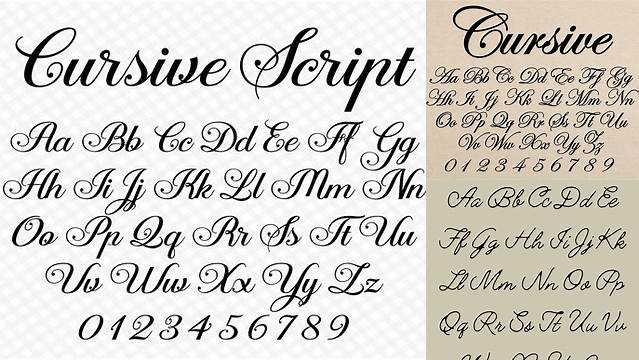
Cursive Alphabet Fonts Styles: A Comprehensive Guide
Discovering the world of cursive alphabet fonts styles can feel like opening a treasure chest. The elegance, the flow, and the sheer artistry of each letter can be captivating. Whether you're a seasoned designer, a student eager to master the art of calligraphy, or simply someone who appreciates beautiful typography, understanding the nuances of cursive fonts is essential. This comprehensive guide will take you on a journey through various styles, offering insights and tips to help you choose the perfect font for your project. Let's dive in, guys!
The Allure of Cursive: Why Choose Cursive Alphabet Fonts?
Alright, let's talk about why cursive alphabet fonts styles are so darn appealing. Cursive fonts, at their core, evoke a sense of sophistication, personalization, and tradition. Think about a handwritten letter – it's intimate, it's unique, and it carries a certain charm that a plain, typed message simply can't replicate. This same charm translates beautifully into the digital realm. When you select a cursive font, you're essentially adding a touch of human warmth and creativity to your work. Consider this, you can add a touch of human warmth and creativity to your work, making your projects stand out.
Cursive fonts are great for everything from wedding invitations to branding materials, logos, and even social media graphics. They can instantly elevate the aesthetic of your design, making it feel more luxurious, romantic, or even playful, depending on the specific style you choose. Plus, cursive fonts often have a graceful flow, connecting letters to create a visually pleasing rhythm. This makes them perfect for headlines, quotes, and anything where you want to draw attention and create a lasting impression. But hey, you should use it wisely. You don't want to use cursive fonts in places where readability is a must-have thing.
The Impact of Cursive in Design
Let's explore how cursive alphabet fonts styles can make an impact on the design. The correct font can seriously elevate your design. Using the right cursive font helps create the desired mood, tone, and style. A delicate, flowing script might be ideal for a wedding invitation, while a bold, more modern cursive could be perfect for a fashion brand's logo. The strategic use of cursive fonts allows you to create designs that are both visually appealing and effective in conveying your message. The right selection of cursive fonts also helps with branding. It can also help with creating a unique identity and building brand recognition. Think of the classic cursive Coca-Cola logo, or the elegant script of Tiffany & Co. - these fonts are instantly recognizable and synonymous with the brands themselves. But let's not forget about readability! The more you use the cursive font, the more people get used to it. So, using it in moderation helps with the overall design, as well as the message.
Classic Cursive Fonts: Timeless Elegance
Now, let's journey into the heart of cursive alphabet fonts styles: the classics. These are the fonts that have stood the test of time, and for good reason. They're the elegant, familiar faces that embody the essence of cursive handwriting. These are the go-to choices for projects needing a touch of traditional sophistication. They are also the most popular choices.
Classic cursive fonts, like the famous ones, are generally known for their formal letterforms, connected strokes, and graceful curves. They often emulate the look of traditional penmanship, offering a sense of heritage and refinement. They can be a safe bet when you're aiming for timelessness. These fonts evoke a sense of nostalgia, reminding us of a time when handwriting was an art form. These are your go-to fonts when you want to establish a classic, sophisticated mood. They can also be a great choice when you want to add a personalized touch to a design.
Popular Classic Cursive Fonts and Their Characteristics
Let's explore some of the most popular and well-loved cursive alphabet fonts styles in the classic category. You've probably seen these fonts around. The most recognized and widely used of these fonts is definitely the Zapfino. Originally developed by Hermann Zapf, this font beautifully mimics a hand-written style with its flowing and natural lines. The font also comes with several features. It supports many ligatures and contextual alternates, offering a realistic hand-written feel. Next, there is also the Shelley Allegro. Created by Colin Brignall, this font is known for its very elegant and romantic feel. It is great for invitations and other special event-themed projects. Now, let's also include Edwardian Script. This one is pretty famous too. Inspired by the early 20th century, it offers a very formal and classic look. It's perfect for any project that needs a touch of vintage elegance. So, if you are unsure, start with these. They are pretty safe options.
Modern Cursive Fonts: Contemporary Flair
Okay, let's shift gears from the classics and dive into the world of modern cursive alphabet fonts styles. These fonts are where you'll find contemporary designs, often with a touch of innovation and a dash of edginess. These fonts are tailored for projects where you want to show off a modern look. They’re the go-to choice when you want to add some unique character to your design.
Modern cursive fonts often embrace bold strokes, unique letter shapes, and sometimes even a playful disregard for traditional penmanship rules. They are designed to make a statement, so they tend to have more distinctive features. They are also characterized by their fresh and contemporary feel, making them a perfect choice for designs that aim to stand out from the crowd. You'll often see these fonts used in branding, logos, and social media graphics, where a touch of creativity can make all the difference.
Key Features of Modern Cursive Fonts
What makes modern cursive alphabet fonts styles so unique, you ask? The main feature is their innovative spirit, which allows them to push the boundaries of what cursive fonts can be. Many fonts incorporate unusual letterforms, such as angular or stylized strokes. They often come with a bold or heavy weight, creating a high visual impact. Modern cursive fonts also tend to incorporate a variety of ligatures and alternate characters. So, the users can customize them and add uniqueness to their designs. Some modern cursive fonts might also have a handwritten or brush-like quality. This gives a raw and organic feel to your design. The designs are very flexible and very diverse, which allows them to fit many design projects.
Script Fonts vs. Cursive Fonts: Understanding the Difference
Alright, let's clear up some confusion. Sometimes, the terms script fonts and cursive alphabet fonts styles are used interchangeably, which can get a little muddy. While there's overlap, there are key distinctions to keep in mind. Knowing the difference can help you select the best font for your needs.
Generally, a script font encompasses all fonts that mimic handwriting. This includes a wide range of styles, from formal calligraphic fonts to casual brush-stroke fonts. Cursive fonts, on the other hand, are a subset of script fonts. They specifically emulate the style of connected handwriting. So, all cursive fonts are script fonts, but not all script fonts are cursive. Think of it like this: All squares are rectangles, but not all rectangles are squares. Now, are you getting it?
Script Font Styles Beyond Cursive
Let's explore other script alphabet fonts styles outside of cursive. Beyond cursive fonts, the script font category opens up a whole world of design possibilities. We're talking brush script fonts, which mimic the rough, expressive strokes of a paintbrush. Then there are calligraphic fonts, which offer the elegant precision of formal calligraphy. The casual script fonts are very flexible. They can be used for various design needs. Each style can influence the mood and tone of your design.
Brush Script Fonts: The Art of the Stroke
Now, let's paint with words and delve into the world of brush script fonts. These fonts are designed to look like they've been written with a paintbrush, offering a free-flowing, organic aesthetic. If you want to add a splash of personality, this is the way to go. These fonts are perfect for projects where you want a casual, handcrafted look. These are a great way to add a natural touch to any design project.
Brush script fonts are characterized by their dynamic strokes, often varying in thickness to reflect the pressure applied with a brush. They often have a handwritten feel that makes them warm and personal. These fonts can also bring a sense of energy and movement to a design. They're perfect for projects that benefit from a more artistic feel. Many of them offer a variety of character options, such as ligatures, that can mimic a handwriting aesthetic.
Popular Brush Script Font Characteristics
Let's dive into the unique characteristics of brush script fonts. Each stroke should be visually dynamic. The strokes should vary in thickness. This allows the users to create a natural feel and a handwritten look. Brush script fonts also often embrace imperfect and slightly irregular letterforms, which add to their raw charm. Many designs include a variety of alternates and ligatures. This helps in creating a realistic look. This also helps users to customize the font based on their design needs. They may have a textured appearance, which can simulate the effect of ink on paper. So, if you are trying to design a project that has a warm, handcrafted vibe, brush script fonts are the best option.
Calligraphic Fonts: The Elegance of Formal Script
Now, let's switch to something a bit more refined, and explore the elegance of calligraphic alphabet fonts styles. These fonts emulate the style of formal calligraphy, offering a sophisticated and timeless aesthetic. These fonts are perfect for projects that require a touch of elegance, such as wedding invitations, formal announcements, or luxury branding.
Calligraphic fonts are all about precision and artistry. They're characterized by their flowing letterforms, graceful curves, and often, the use of decorative flourishes. They tend to have a very formal feel, reflecting the traditional art of calligraphy. The emphasis here is on beauty and refinement, with each letter carefully crafted to create a harmonious visual experience. These fonts are perfect if you want your project to stand out.
Key Features of Calligraphic Fonts
Let's explore the defining features of calligraphic alphabet fonts styles. These fonts often showcase a strong contrast between thick and thin strokes. This creates a visual rhythm and adds to their elegance. They have a delicate and refined appearance that is a hallmark of traditional calligraphy. Many calligraphic fonts include elaborate flourishes and swashes. These are artistic elements that add a touch of sophistication and visual interest to the design. Calligraphic fonts also often have carefully crafted letter connections, ensuring a smooth and graceful flow between letters. The designs are perfect for projects that require a sense of tradition and refinement. For those who want to add a bit of elegance to their design projects, calligraphic fonts are the best choice.
Handwritten Fonts: Emulating the Human Touch
Let's talk about the unique style of handwritten alphabet fonts styles. These fonts are designed to mimic real handwriting, offering a personal and authentic touch. These fonts are perfect for projects where you want to create a sense of intimacy and originality. They're the fonts that add a human touch to your work.
Handwritten fonts often have an informal and approachable vibe. They're characterized by their unique and sometimes imperfect letterforms, mirroring the natural variation found in handwriting. These fonts can add a sense of warmth and approachability to your design. These fonts are great for things like personal cards, social media content, and any other design where you want to create a connection with your audience.
The Characteristics of Handwritten Fonts
Let's get into the core features of handwritten alphabet fonts styles. These fonts are known for their individual and unique letterforms. Each letter may be slightly different, reflecting the natural variation of handwriting. They often have an organic and informal aesthetic, with a more casual vibe. They are characterized by a natural flow and connection. This allows the fonts to mimic how words are written in real life. Some handwritten fonts include imperfections, such as uneven lines or subtle variations in stroke thickness. This adds to their authentic, hand-drawn quality. So, the more you use the handwritten font, the more it feels personal.
Choosing the Right Cursive Font: A Step-by-Step Guide
Alright, ready to choose the perfect cursive alphabet fonts styles? It's not always easy, but we'll guide you through the process. Here's a step-by-step guide to help you select the ideal font for your project.
First, define the purpose of your project. What message are you trying to convey? Are you aiming for elegance, playfulness, or professionalism? Your goal will influence the choice of font.
Identifying Your Project's Needs
Let's dig deeper into the project requirements for cursive alphabet fonts styles. Think about your target audience. Will they appreciate the font? The age, interests, and expectations of your audience are very important. Also, consider the design context. Is it a wedding invitation, a logo, or social media content? Each context needs a specific font design. Then, consider the readability. Choose a font that is easy to read, especially if it's used for long text or headlines. The overall design should fit your font style. The font needs to match the design you are doing.
Testing and Refining Your Choice
After you've made your selection of cursive alphabet fonts styles, it's important to test it out. See how the font looks in practice. This is an essential step to make sure that you are going in the right direction. The design is a very important thing in the project, so it's always a must to check your font before you proceed with the design. It allows you to spot any issues and make adjustments before you finalize your design.
Implementing Your Chosen Font in Your Project
Once you've chosen the cursive alphabet fonts styles that's perfect for your project, the next step is to implement it. It can seem daunting, but it's really about making sure that the font works as you envisioned. There are several key things to consider. Make sure that your font has a proper design. Make sure it aligns with your brand identity and the tone you are trying to communicate. Consider the weight and size of the font. Make sure it is readable and visually appealing. Adjust the spacing and kerning of the font, for better readability. Remember, the goal is to make your design stand out, so always make sure your font aligns with your design.
Font Licensing: Understanding the Legalities
When dealing with cursive alphabet fonts styles, you should also know about font licensing. Font licensing is essential for respecting the intellectual property rights of font designers and avoiding legal issues. You need to learn about different types of font licenses and the scope of their usage.
Types of Font Licenses
Here's what you should know about cursive alphabet fonts styles and licenses. The most common one is the Personal Use License. This allows you to use the font for personal, non-commercial projects. Then there's the Commercial Use License. This lets you use the font for commercial projects, such as those aimed at making a profit. Pay attention to the terms of each license. Some licenses may have restrictions on things like the number of users or the type of project you can use the font for. Others may include a price for usage. The next type of license is the Open Font License. These are usually free fonts that permit their usage without having to pay for them. You can usually download these from Google Fonts. Understanding these details is crucial to make sure you are using the font legally.
Cursive Font Pairings: Finding the Perfect Match
Let's talk about another important thing when working with cursive alphabet fonts styles: font pairings. Pairing a cursive font with the right complementary font can significantly enhance your design. It allows you to create a balanced and visually appealing design. So, choose the right pair that matches your design needs.
Choosing Complementary Fonts
When choosing font pairs for cursive alphabet fonts styles, think about how your chosen fonts will complement each other. Try combining a cursive font with a sans-serif or serif font. This creates a contrast and adds balance to your design. Make sure the pairing works. A good font pairing should enhance the readability and overall aesthetic of your project. Check the character of the fonts you are choosing. These two fonts should work together. Remember, the goal is to create a design that is both visually appealing and easy to understand. So, choose wisely and create the perfect font pairing.
Free Cursive Fonts: Where to Find Them
Alright, where do you find these cursive alphabet fonts styles? It's a common question, and the answer is simple: there are many websites that offer free cursive fonts! These sites are great resources for anyone looking to expand their font collection. Remember to pay close attention to the licensing agreements to make sure you can use the font for your project.
Top Websites for Free Fonts
Let's explore some of the top websites to find free cursive alphabet fonts styles. Google Fonts is a popular choice, offering a wide range of free fonts. It is also easy to use and easy to navigate. DaFont is a well-known website with a large collection of fonts, including many cursive options. Font Squirrel is another great resource, providing free fonts with commercial use licenses. So, finding the right free font is very easy. But remember, always check the licensing terms.
Cursive Fonts in Branding: Creating a Brand Identity
Now, let's look at how you can use cursive alphabet fonts styles for branding. Choosing a cursive font can really define your brand identity. Using a cursive font can help you show off your brand image. A well-chosen cursive font can create a strong visual identity that resonates with your target audience.
Leveraging Cursive Fonts in Logos and Marketing Materials
When using cursive alphabet fonts styles for logos and marketing materials, consider the message you want to convey. Your font choice will affect how your brand is perceived. Make sure your logo and marketing materials use the same font. Also, make sure that your marketing materials are consistent. The font needs to be aligned with your brand identity. When selecting, always keep readability in mind. A font that is both beautiful and easy to read is always the best choice.
Cursive Fonts in Web Design: Enhancing User Experience
How do you use cursive alphabet fonts styles for web design? Cursive fonts can add a touch of elegance and personality to your website. Make sure the font you choose is legible and user-friendly, and you can really make your website better for your users.
Best Practices for Cursive Fonts on the Web
When designing your website with cursive alphabet fonts styles, you should follow a few best practices. Make sure the font is easy to read. Select a font size and weight that's easy on the eyes. Use cursive fonts sparingly, and only for headings or decorative elements. Remember that a good user experience is very important. So, always design with it in mind. Make sure your website looks good on all devices. So, you can provide users with the best user experience possible.
Cursive Fonts for Invitations: Setting the Tone
Let's explore the usage of cursive alphabet fonts styles for invitations. Cursive fonts are perfect for invitations. They can add a touch of sophistication and charm to your design. Whether it's a wedding, a party, or a corporate event, a well-chosen cursive font can set the right tone. This makes your invitation unique.
Designing Invitations with Cursive Fonts
When creating an invitation with cursive alphabet fonts styles, consider your design. The font should match the event. Choose a font that complements the event. Always check for readability and choose the best size and weight. Make sure the spacing is right, so your invitation looks good. Remember, a great design can set the tone of the event.
Digital Calligraphy: Creating Cursive Fonts Digitally
Let's talk about how you can design your own cursive alphabet fonts styles digitally. You can create your own font. The tools available make it easier than ever to create fonts from scratch. The designs created can be as unique and personalized as you want. This opens the door to a world of creative possibilities.
Software and Tools for Digital Calligraphy
When you are designing your own cursive alphabet fonts styles, here's a list of software that you can use. FontForge is a free and open-source font editor that is suitable for both beginners and advanced users. FontLab is a professional-grade font editor, offering very advanced design features. Calligraphr is a web-based tool that allows you to create fonts from your handwriting. With these tools, you can create a font that matches your design needs.
Custom Cursive Fonts: Commissioning Unique Designs
If you have a unique design need, you can always get a custom cursive alphabet fonts styles. You can hire a professional font designer to create a unique typeface. They are a good choice if you are looking for something unique that fits your brand. The designs created will be very personalized.
Working with a Font Designer: The Process
Let's look at the process of working with a font designer for cursive alphabet fonts styles. You need to start by defining your needs. Do you want to add some unique brand identity? Make sure the font fits with the brand. Then, you'll work closely with the designer. They will offer their expertise, skills, and creativity to your design. Once the font is created, you own it, and can use it as you need. This ensures that your brand image is always consistent.
Cursive Fonts for Education: Teaching and Learning
Let's see how cursive alphabet fonts styles are used in education. Cursive fonts are important for teaching handwriting, and they are used widely in schools. Learning how to write in cursive can help develop hand-eye coordination and improve the student's cognitive skills.
Cursive Writing in Schools: Benefits and Challenges
In schools, the students can learn cursive alphabet fonts styles. It is important for students to know cursive writing. It helps improve their cognitive skills. Also, students can express their creativity, which helps improve their writing skills. However, there are some challenges. Some students may find it difficult to master cursive. Also, the amount of time available to learn cursive in school might be limited.
The Future of Cursive Fonts: Trends and Innovations
What about the future of cursive alphabet fonts styles? The development of new technology and the constant changes in design trends are having a big impact on cursive fonts. There are continuous innovations and new ways of using cursive fonts, which can open up a lot of new possibilities.
Emerging Trends in Cursive Font Design
Let's look at some trends in cursive alphabet fonts styles. There is a trend toward using fonts that can express a more natural look. The designers are starting to experiment with creating more unique and innovative styles. These trends will influence the future of fonts, and how people use them. These changes will shape the future of design.
Troubleshooting Cursive Font Issues: Tips and Tricks
What do you do if you have problems when using cursive alphabet fonts styles? Things don't always go smoothly, so you need to know the common problems. There are also some troubleshooting tips to help you solve these issues. Knowing these tips can save you time and frustration.
Common Problems and Solutions
If you face issues when using cursive alphabet fonts styles, here are some common problems. One issue is the issue with how the letters are connecting. Another issue could be the kerning and spacing problems. When you have problems, you can correct these by adjusting the kerning. Also, you can also check the font files to make sure you have downloaded the correct font files. If you are having trouble with a font, make sure to always troubleshoot the issue properly.
Beyond the Basics: Advanced Cursive Techniques
Alright, are you ready to go beyond the basics of cursive alphabet fonts styles? If you know the basics, you can start with advanced techniques. This will enhance your skills. With these techniques, you can improve your designs and take them to the next level. These methods will help you expand your creative abilities.
Mastering Cursive: Tips for Experienced Designers
For experienced designers, here are a few advanced techniques for cursive alphabet fonts styles. You can experiment with different weights and styles. Make sure you also look into ligatures. If you understand these methods, you can create innovative and impressive designs. By mastering these techniques, you can truly master the art of cursive design.
Cursive Fonts and Accessibility: Making Designs Inclusive
Accessibility matters a lot when using cursive alphabet fonts styles. You need to make sure that your design is inclusive and user-friendly. Making designs that everyone can use is important, so it helps if your designs are accessible to all users. Accessibility ensures everyone can enjoy your designs.
Ensuring Readability and Inclusivity
When using cursive alphabet fonts styles, readability and inclusivity is important. Always test the readability of your designs. So, make sure you use fonts that are easy to understand. Always provide alternative text for images. This will help the visually impaired. By following these tips, you can make sure your designs are both accessible and inclusive. This way, everyone can read your design and use your design.
Cursive Fonts for Social Media: Engaging Content
Let's explore how cursive alphabet fonts styles can be used for social media. You can create interesting posts and engaging content. Cursive fonts will draw attention, and make your social media stand out. In social media, it is important to create unique and exciting content. This makes people want to see your posts.
Using Cursive Fonts in Social Media Graphics
When creating social media graphics with cursive alphabet fonts styles, consider how you will use them. You can create beautiful graphics. You can also use a cursive font for your brand logo or other graphics. Always balance creativity with readability. If you use these tips, you can greatly improve your social media presence.
Cursive Fonts in Print Design: Creating Visual Harmony
How do you use cursive alphabet fonts styles for print design? A great print design should have visual harmony. Your designs will be beautiful, and can have a big visual impact. A beautiful design creates a memorable impression, and you will also be able to communicate your ideas better.
Best Practices for Cursive in Printed Materials
When using cursive alphabet fonts styles in print, always choose a readable font. Always match the font to your brand. Make sure that you choose the right size and weight. Make sure your spacing and kerning are good. Using these tips will make your print designs much better.
The Psychology of Cursive Fonts: Eliciting Emotions
Let's delve into the psychology behind cursive alphabet fonts styles. Different fonts are associated with different feelings, so they will influence how your audience thinks. If you understand the psychology of fonts, it will help you select the right font for your needs.
Emotions Associated with Cursive Fonts
Here are some feelings associated with cursive alphabet fonts styles. Many people associate cursive fonts with elegance, sophistication, and romance. Cursive fonts can also trigger feelings of nostalgia, and memories of the past. It is very important to understand the emotions, so you can create your perfect design.
Cursive Fonts and the Evolution of Typography
Now, what is the evolution of cursive alphabet fonts styles? Cursive fonts have developed over time, and have been around for a long time. The evolution of these fonts shows how typography has been important. The changes show how design has always changed.
Historical Context and Influences
Let's explore the history of cursive alphabet fonts styles. Cursive fonts have been influenced by calligraphy, and writing styles. Cursive fonts are constantly evolving, influenced by history and the world around them. The changes show the constant process of design.
Conclusion: Embracing the Art of Cursive
Wrapping it all up, cursive alphabet fonts styles offer a world of creative possibilities. You can also explore their beauty and versatility. Whether it's for a professional design or a creative project, understanding these fonts can elevate your work. So, start experimenting, and get creative! Go have fun, and happy designing, guys!